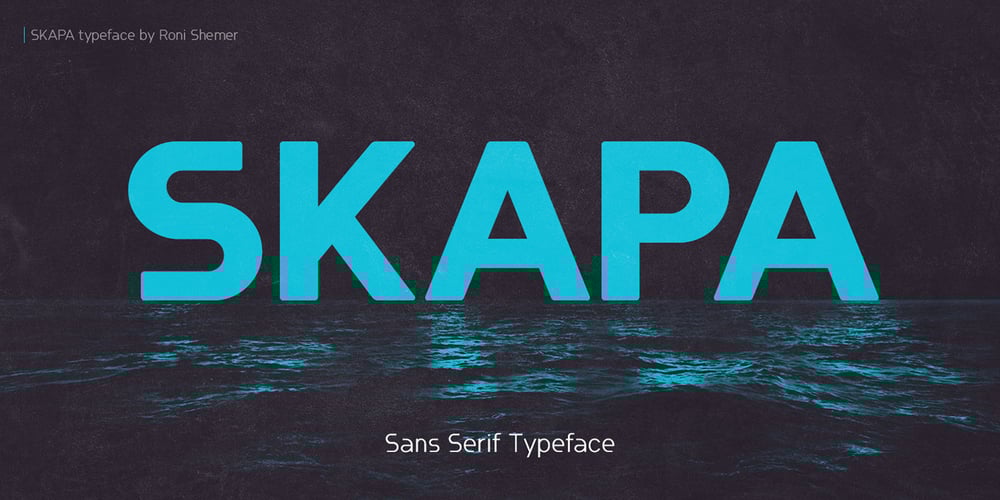
Skapa Font Family was designed by Roni Shemer and published by Fontoura. Skapa contains 10 styles and family package options. Skapa is all about creation (translation from Old Norse: “to create”). It’s simply the font I always needed and wanted. A well balanced, modern with delicate round corners sans serif, comprised of 5 weights with matching italics.Great for varied graphic design projects and perfect for logos and headlines, print art, billboards etc.Extended support for Central, Eastern and Western European languages.OpenType layout features:Fractions, oldstyle figures, ligatures, slashed zero, superscript, subscript, numerator, denominator and combining diacriticals (Mark Positioning) plus tabular figures for standard figures ,oldstyle figures & currency symbols.Think. Design. Create.